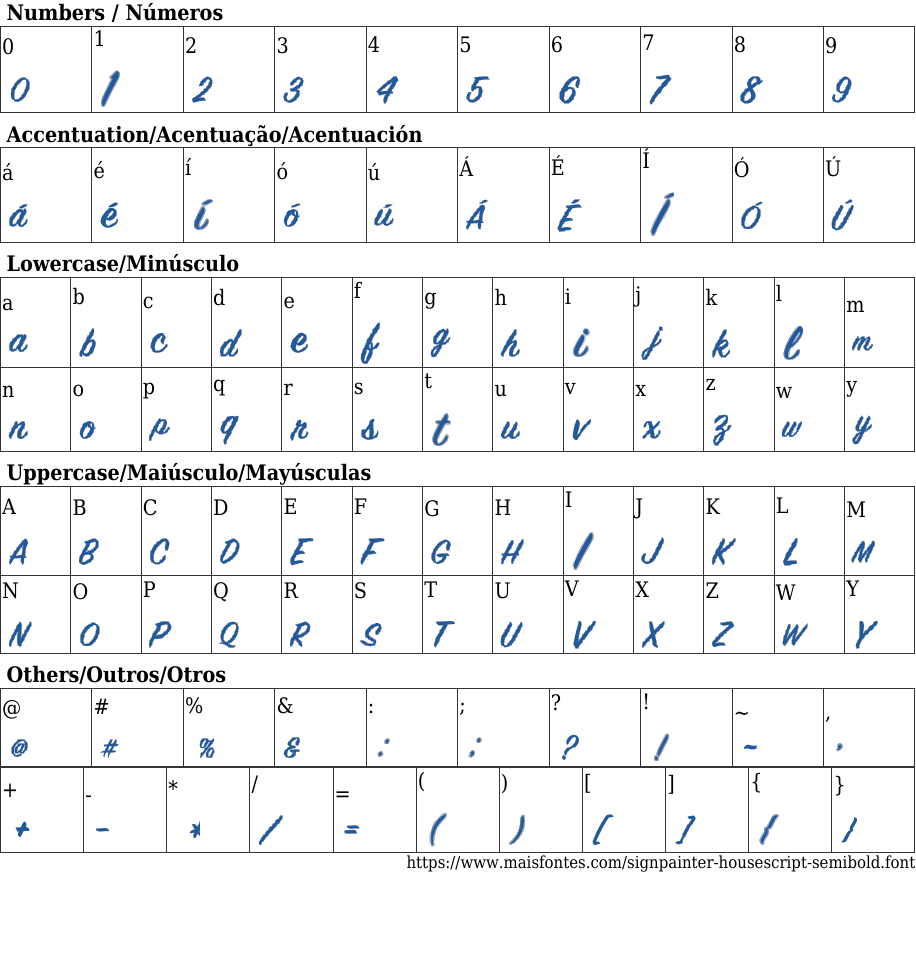
Font Sign Painter House Script Semibold . as prevailing tastes changed and new technologies emerged, commercial art saw the fateful demise of this lost skill. — 1 add to the head section of web page. The font version is version. signpainter housescript font belongs to regular subfamily. — signpainter house script semibold is the perfect font for all your fun designs. Font created by house industries. — the signpainter house script font has a script typography and is great for elegant.